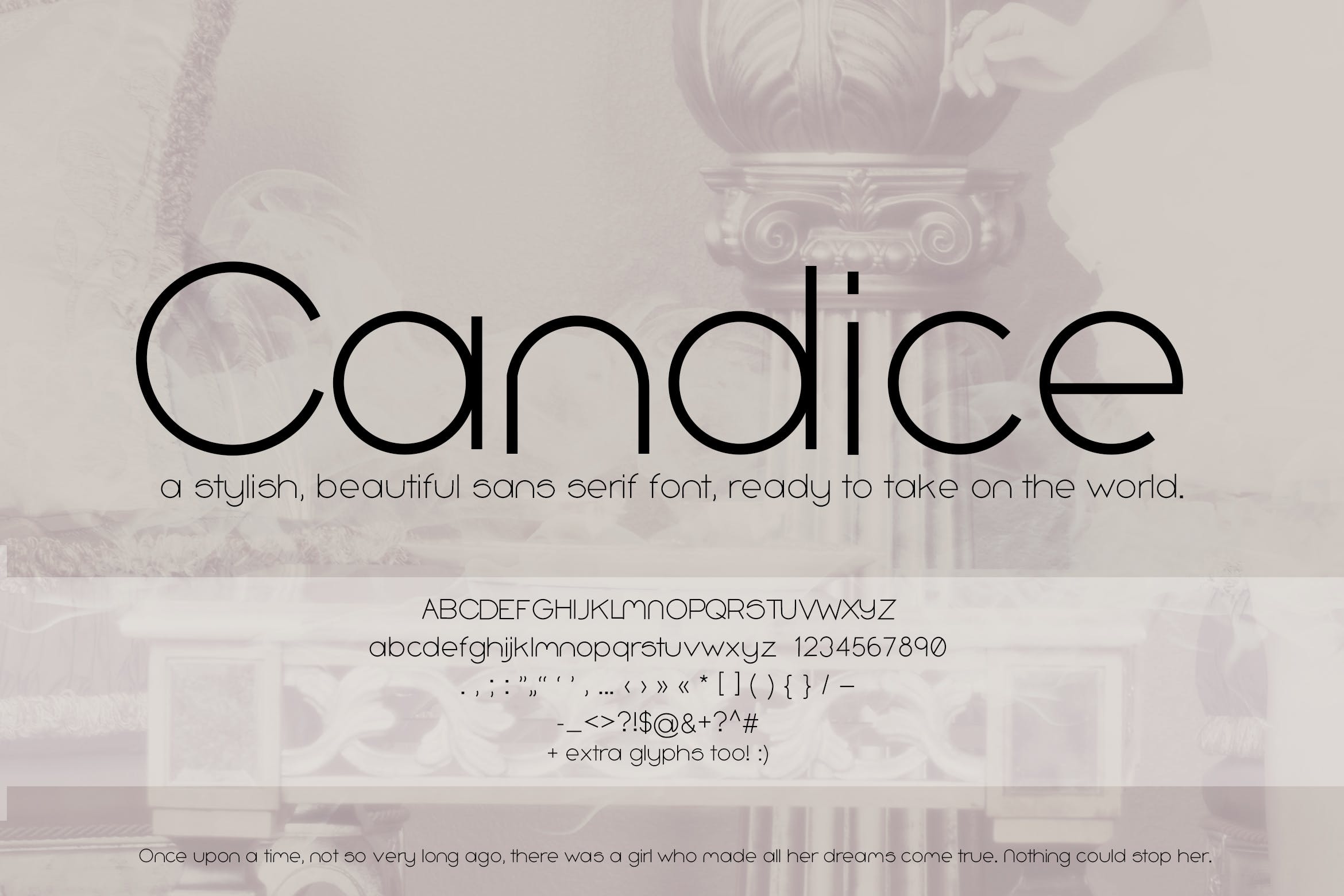
geometric sans serif font
Candice Geometric Sans Serif Font
Introducing Candice, a stylish font with geometric inspiration.
I wanted to create an aesthetic font with a lot of round inspiration. It looks great at both big and small sizes; if you’re looking for sleek fonts, cool fonts, or just a wide font that has some round flare, you might like this one. It could work great for fashion, magazines, and more!
I created each letter myself with vector tools. This cool font is dedicated to a special lady that means a lot to me.